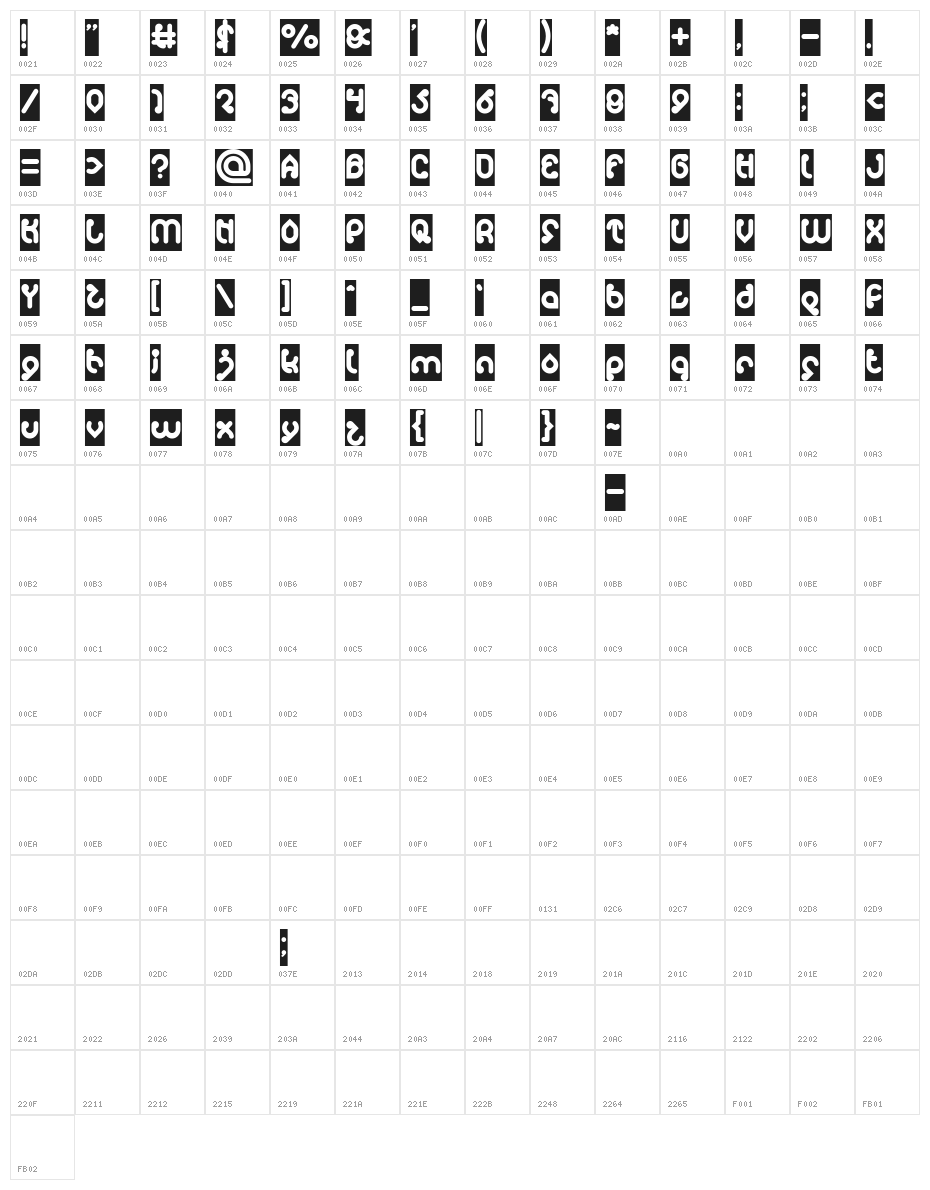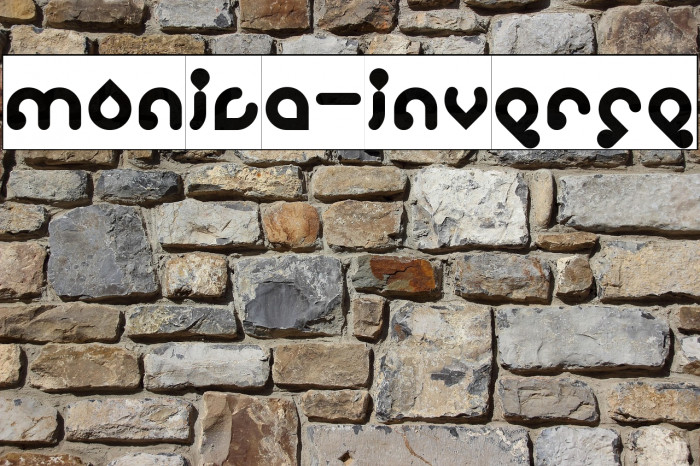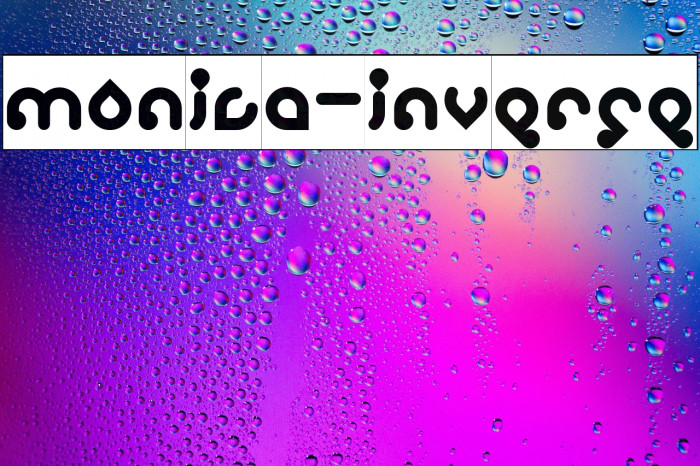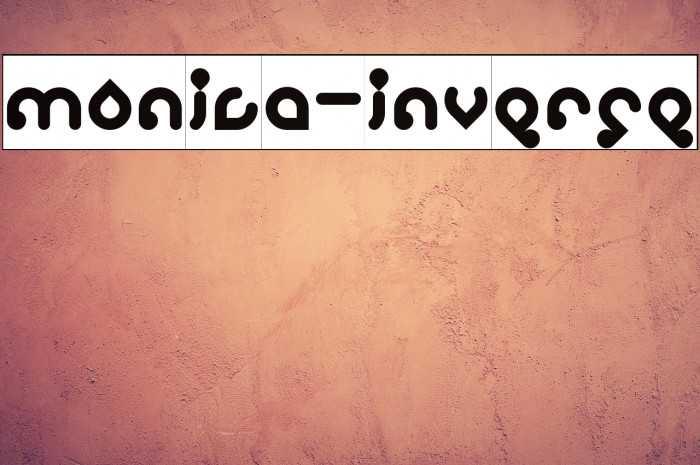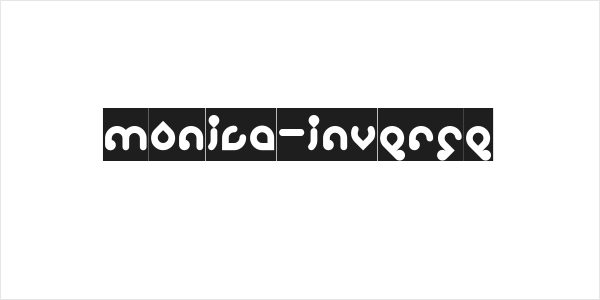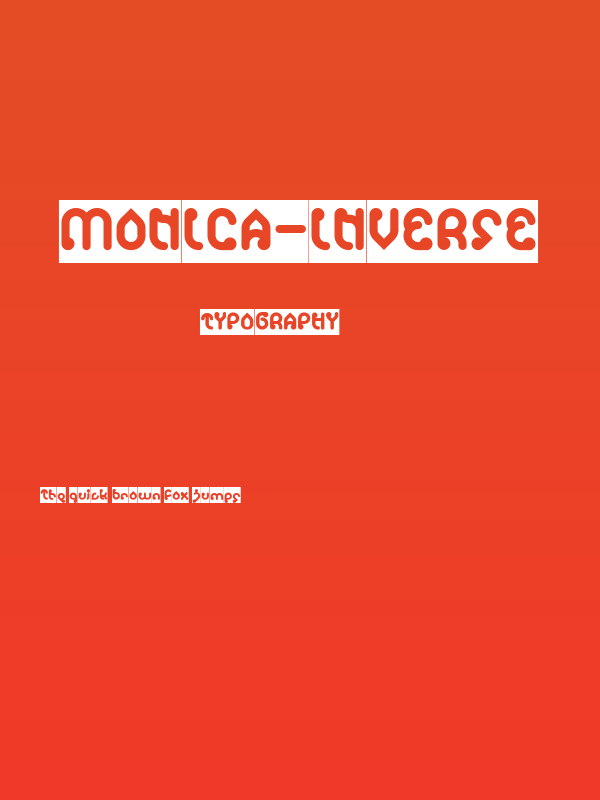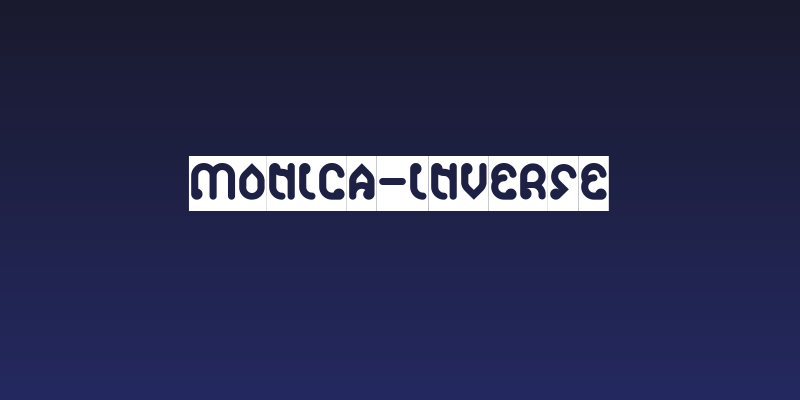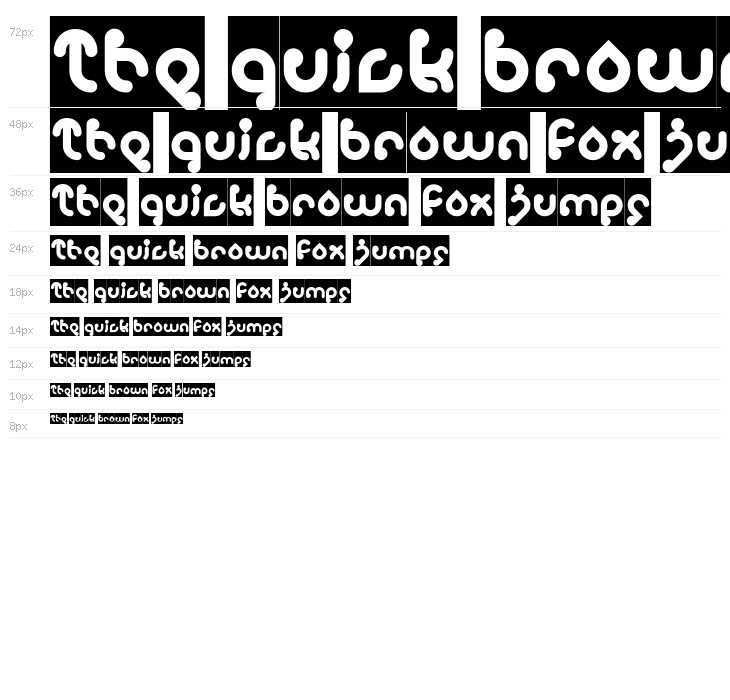
monica-inverse Font
monica-inverse Description
This font features a bold and playful design with rounded, bubble-like characters that create a sense of whimsy and fun. The letters are thick and have a consistent stroke width, giving them a strong presence on the page. The unique style is characterized by its smooth curves and lack of sharp edges, making it approachable and friendly. The numbers and special characters follow the same design principles, ensuring a cohesive look throughout. This font is ideal for projects that require a touch of creativity and lightheartedness.